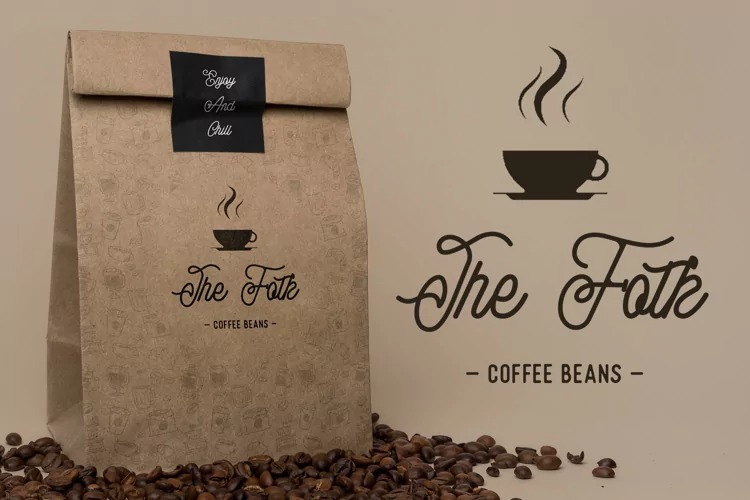
Folkestone Script Font
This is an elegant script font with an elegant handwritten style. Made from font designer named Arendxstudio. This font is a font with distinctive handwritten characters perfect for branding projects, logos, wedding designs, media posts, advertisements, product packaging, product designs, labels, photography, watermarks, invitations, stationery, and any project who need handwritten dishes.